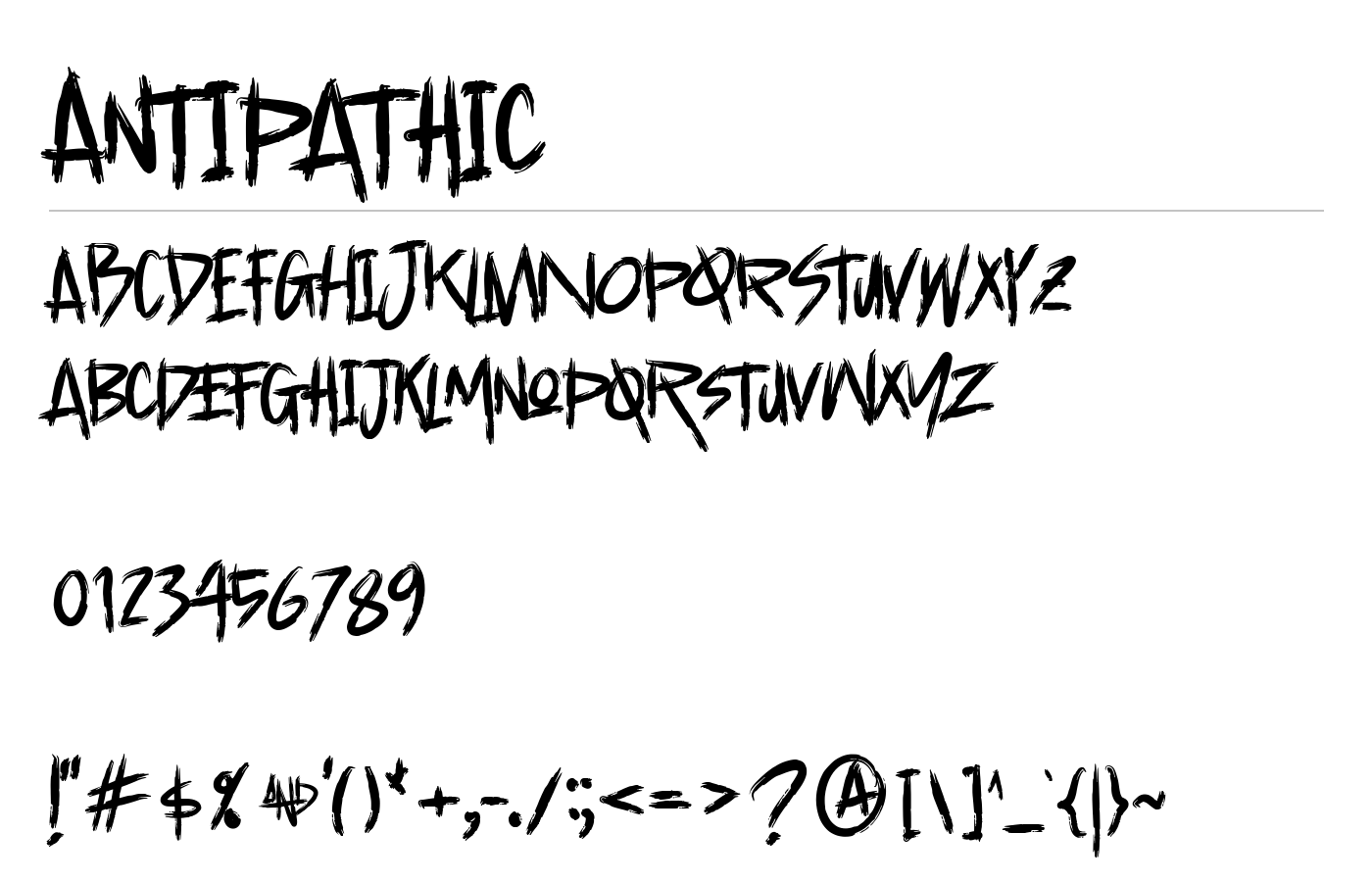
Antipathic is a bold, hand-drawn sans serif font with a rough, brushstroke texture that gives it an edgy and rebellious character. Its irregular shapes and energetic style make it ideal for designs that want to convey a bold, artistic, or alternative vibe, perfect for posters, music branding, or urban-themed projects. This font stands out with its raw, expressive personality, making it less suited for body text but excellent for striking headlines and logos.
Antipathic Font
About Antipathic Font
| Font family | Antipathic Font |
| Designer | Anang Fibriyanto | Cornertype™ Studio Indonesia |